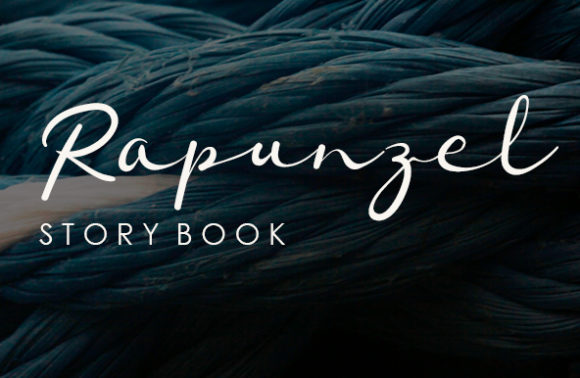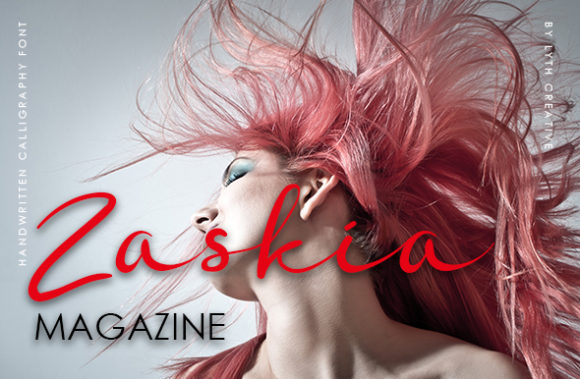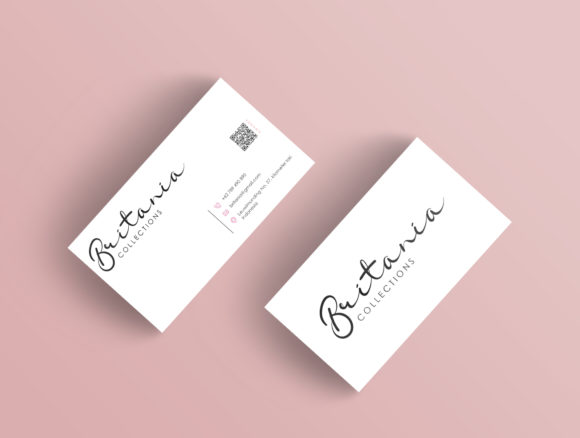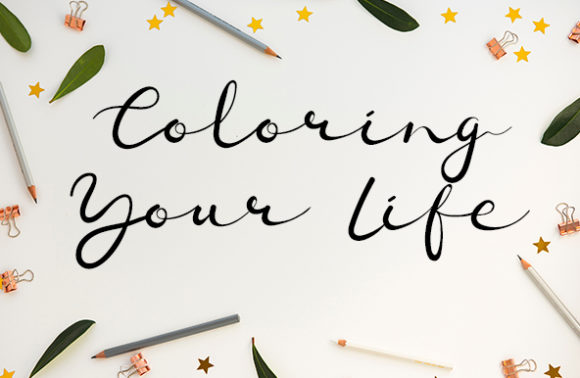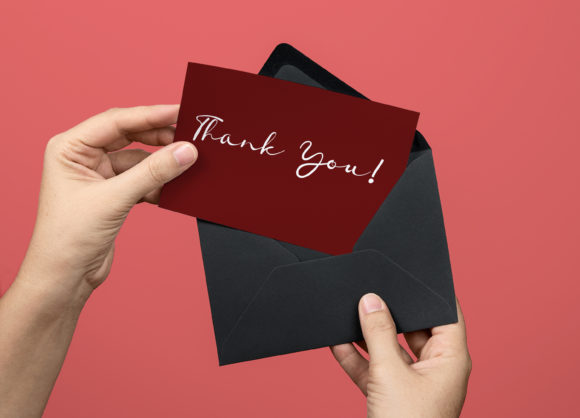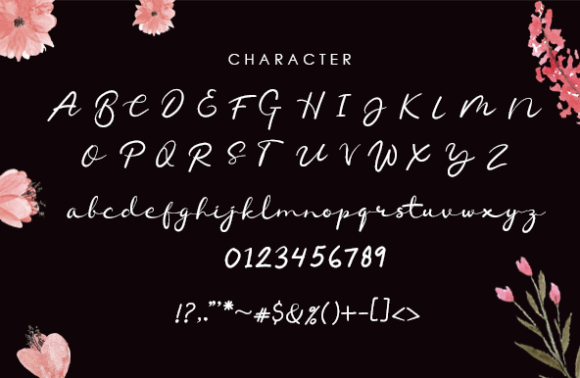
Introducing the Chamelon Font: A Perfect Blend of Classic and Modern Calligraphy
In the world of typography, few fonts manage to strike a balance between classic elegance and modern flair. The Chamelon Font is one such exceptional typeface that seamlessly merges traditional calligraphy with contemporary style. This lovely handwritten calligraphy font has been gaining popularity among designers, crafters, and artists for its versatility and aesthetic appeal.
What Makes Chamelon Font Stand Out?
The Chamelon Font stands out for its unique blend of classic calligraphy elements with a modern twist. This fusion gives it a distinctive look that can elevate a wide range of design projects. Whether you’re working on logos, wedding invitations, t-shirts, letterheads, signage, labels, or any other creative endeavor, the Chamelon Font is an excellent choice.
Key Features of Chamelon Font
- Handwritten Calligraphy Style: The Chamelon Font boasts a beautiful, fluid handwritten style that adds a personal touch to any design.
- Classic yet Modern: It successfully combines the elegance of traditional calligraphy with the simplicity and clarity of modern typography.
- Versatile: Its adaptability makes it suitable for a variety of applications, from formal events to casual branding.
- Easy to Read: Despite its ornate appearance, the Chamelon Font maintains excellent readability, making it perfect for both headings and body text.
Uses of Chamelon Font
The versatility of the Chamelon Font is one of its most appealing qualities. Here are some of the many ways you can use this font:
- Logos: Create a memorable brand logo that stands out with the Chamelon Font’s unique style.
- Wedding Invitations: Add a touch of elegance and romance to your wedding invitations and save-the-date cards.
- T-Shirts and Merchandise: Design eye-catching apparel and merchandise with a font that looks great on both light and dark backgrounds.
- Letterheads and Stationery: Elevate your professional correspondence with beautifully styled letterheads and stationery.
- Signage and Labels: Use the Chamelon Font for signage and labels to add a professional yet creative flair to your products or events.
Tips for Using Chamelon Font Effectively
To get the most out of the Chamelon Font, consider the following tips:
- Pair with Complementary Fonts: When using the Chamelon Font alongside other typefaces, choose fonts that complement its style without competing with it.
- Adjust Size and Color: Experiment with different sizes and colors to ensure the font fits perfectly with your design’s hierarchy and aesthetic.
- Consider the Context: While the Chamelon Font is versatile, ensure it aligns with the tone and purpose of your project.
The Chamelon Font is a stunning example of modern calligraphy that can add a touch of sophistication and elegance to any design project. Its versatility, readability, and aesthetic appeal make it a favorite among designers and crafters. Whether you’re creating a logo, wedding invitation, or signage, the Chamelon Font is sure to make your work stand out. Explore the possibilities of this beautiful font and elevate your designs to new heights.
Discover the beauty of calligraphy in the digital age with the Chamelon Font. Let your creativity shine with this lovely handwritten calligraphy font!